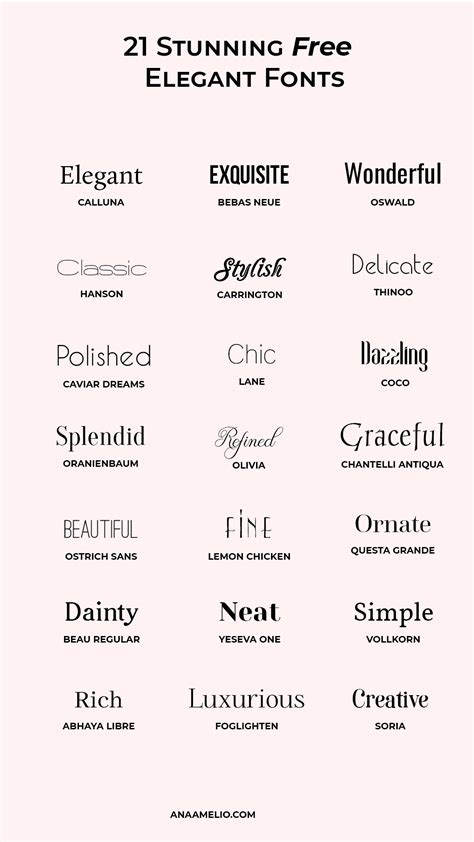
Fancy Fonts On Microsoft Word Letter Words Unleashed
Fancy Office Fonts - Here are 20 aesthetic fonts that you can use in microsoft word: We have a wide selection of fonts to choose from, so you're sure to find one that matches your style. Archive of freely downloadable fonts. We analyse characteristics like readability, legibility, clarity, formality, visual appeal, and versatility to determine which fonts will top for professional use cases in.
Fancy Office Fonts - Serif fonts have long been celebrated for their timeless elegance and functionality. We analyse characteristics like readability, legibility, clarity, formality, visual appeal, and versatility to determine which fonts will top for professional use cases in 2024. Perfect for enhancing readability, professionalism & design appeal. Archive of freely downloadable fonts. We have a wide selection of fonts to choose from, so.
Fancy Office Fonts - We have a wide selection of fonts to choose from, so you're sure to find one that matches your style. Here are 20 aesthetic fonts that you can use in microsoft word: We analyse characteristics like readability, legibility, clarity, formality, visual appeal, and versatility to determine which fonts will top for professional use cases in 2024. If you're looking for.
Fancy Office Fonts - Archive of freely downloadable fonts. If you're looking for a way to personalize your documents, then using our site's microsoft office fonts is a great option. We analyse characteristics like readability, legibility, clarity, formality, visual appeal, and versatility to determine which fonts will top for professional use cases in 2024. Browse by alphabetical listing, by style, by author or by.
Fancy Office Fonts - Because fonts work with the operating system, they are not downloaded to office directly. Browse by alphabetical listing, by style, by author or by popularity. Perfect for enhancing readability, professionalism & design appeal. Here are 20 aesthetic fonts that you can use in microsoft word: Boost your documents with our free office fonts!
Fancy Office Fonts - If you're looking for a way to personalize your documents, then using our site's microsoft office fonts is a great option. Serif fonts have long been celebrated for their timeless elegance and functionality. Boost your documents with our free office fonts! Here are 20 aesthetic fonts that you can use in microsoft word: Browse by alphabetical listing, by style, by.